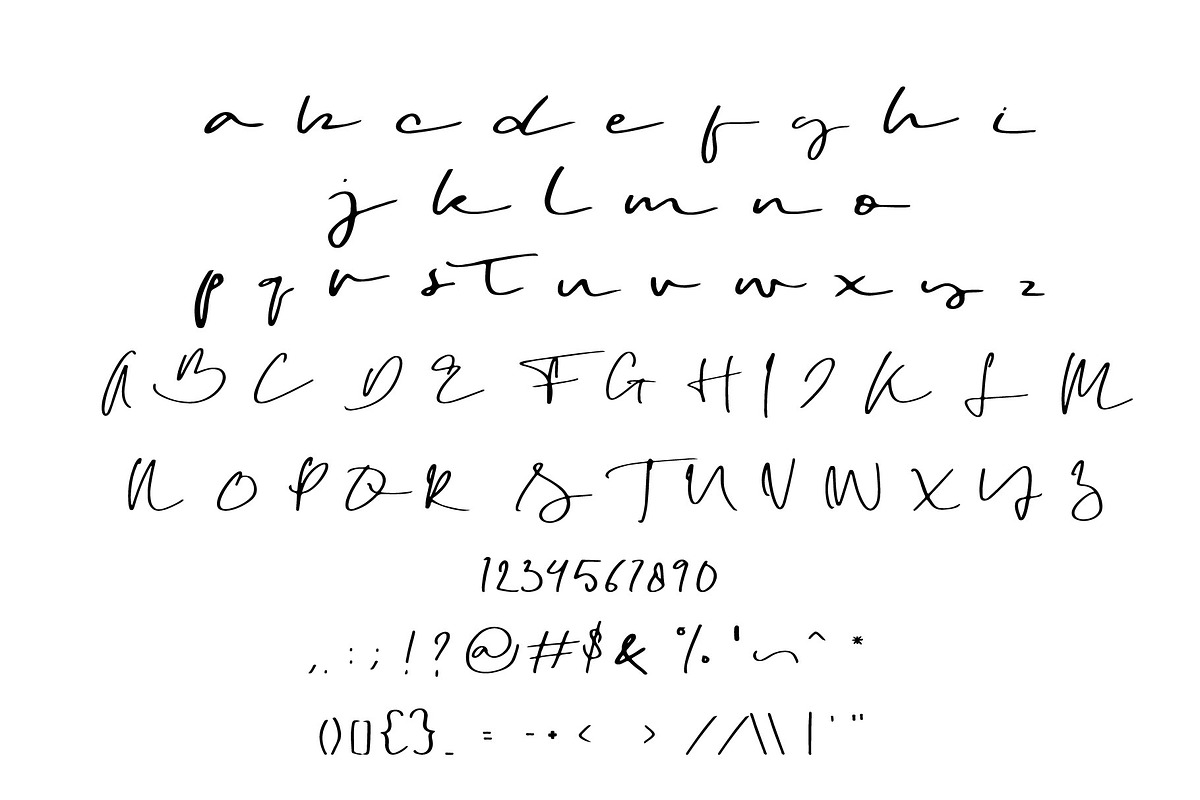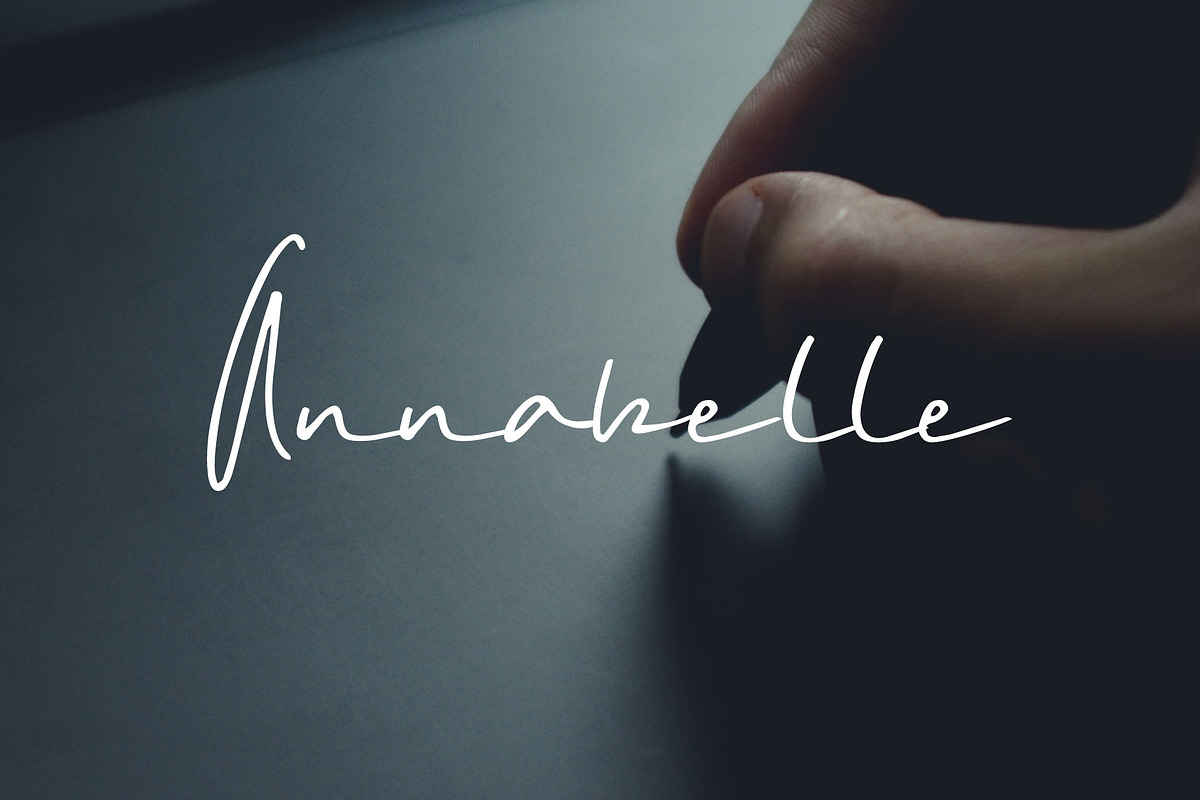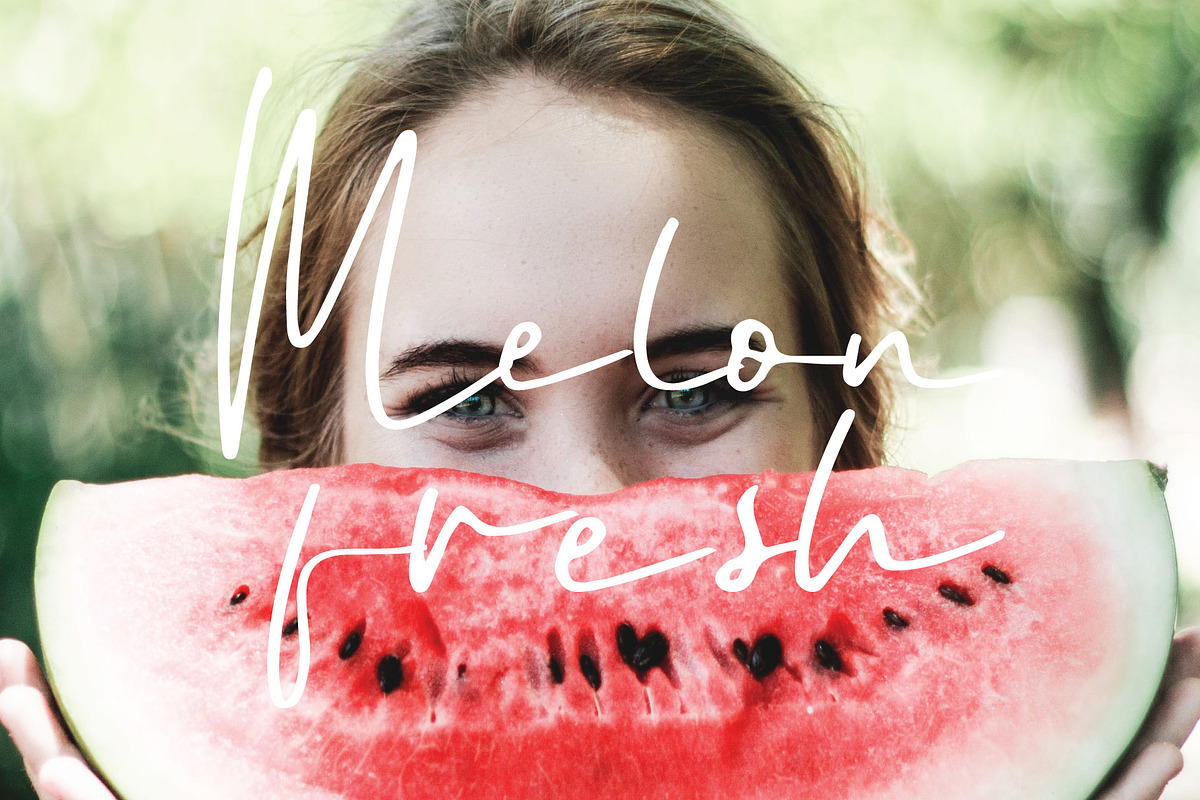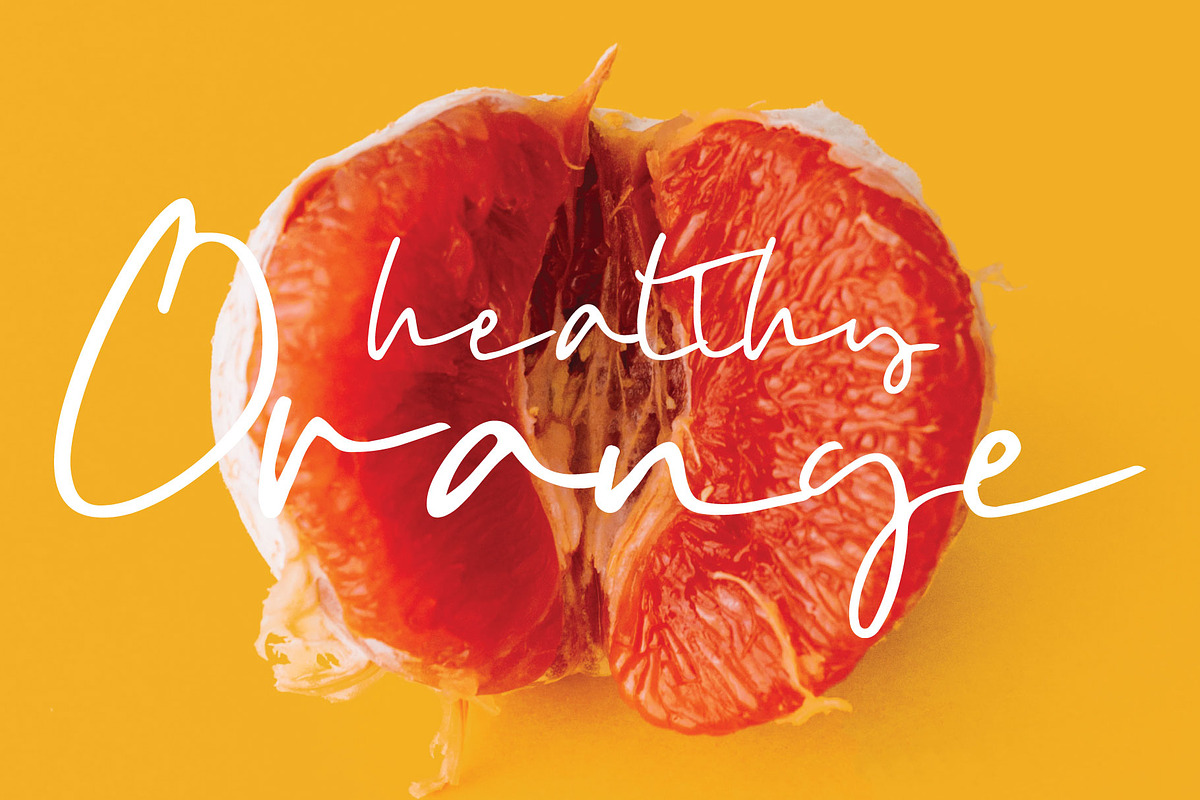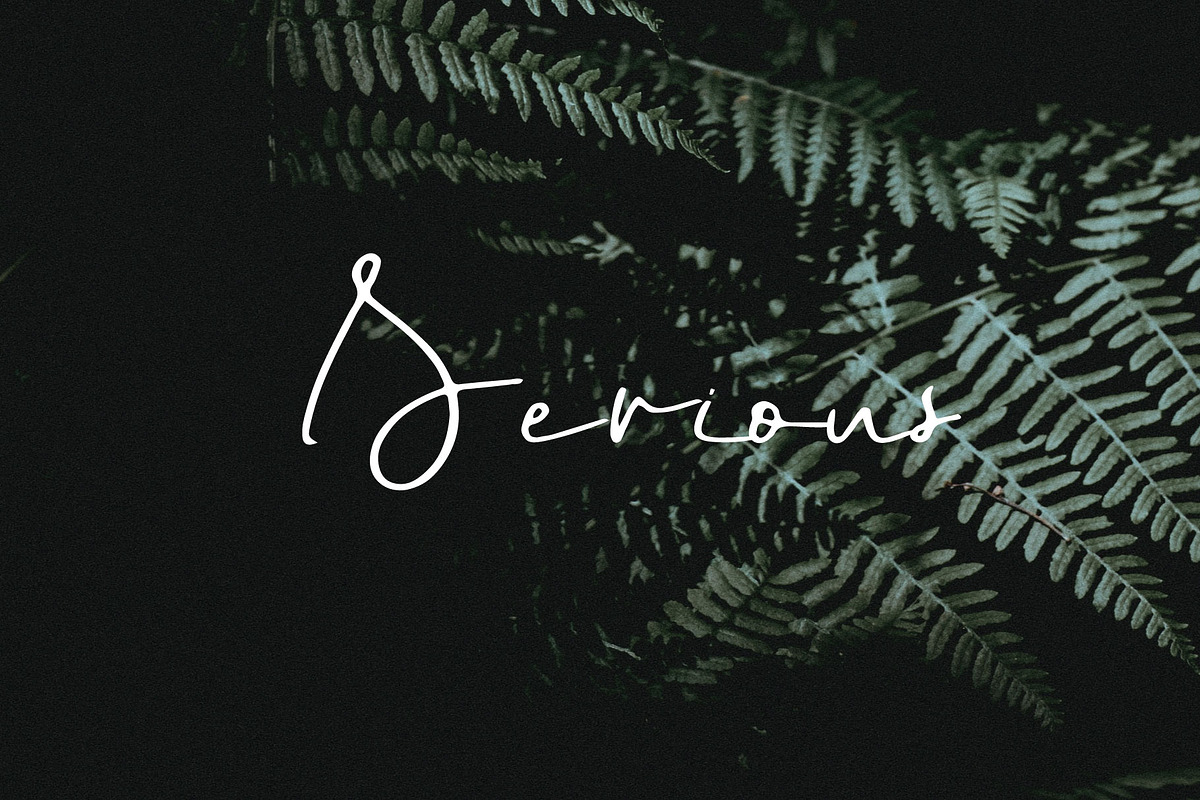
Serious Font
Serious Font by Goodigital13 is a font selected for branding, posters, packaging, typography.
Serious Font by Mariyana fits naturally into Branding, posters, packaging, typography.